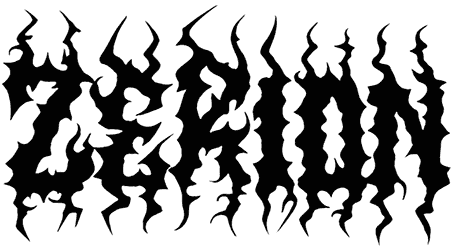
Haunting Attraction Font
Primarily designed to stick out in terms of modernity and sturdiness, Haunting Attraction has proved to be a great choice for logotypes, signs, flyers, or anywhere else you see fit. There’s no lowercase included in its pointy capitals, so obviously using this gothic masculine font as a body text font is off the table.
Regardless, customize your titles and headings with Haunting Attraction, and sure enough, your final typography will come across as sharp as nails, just like this biker gothic font‘s letterforms!